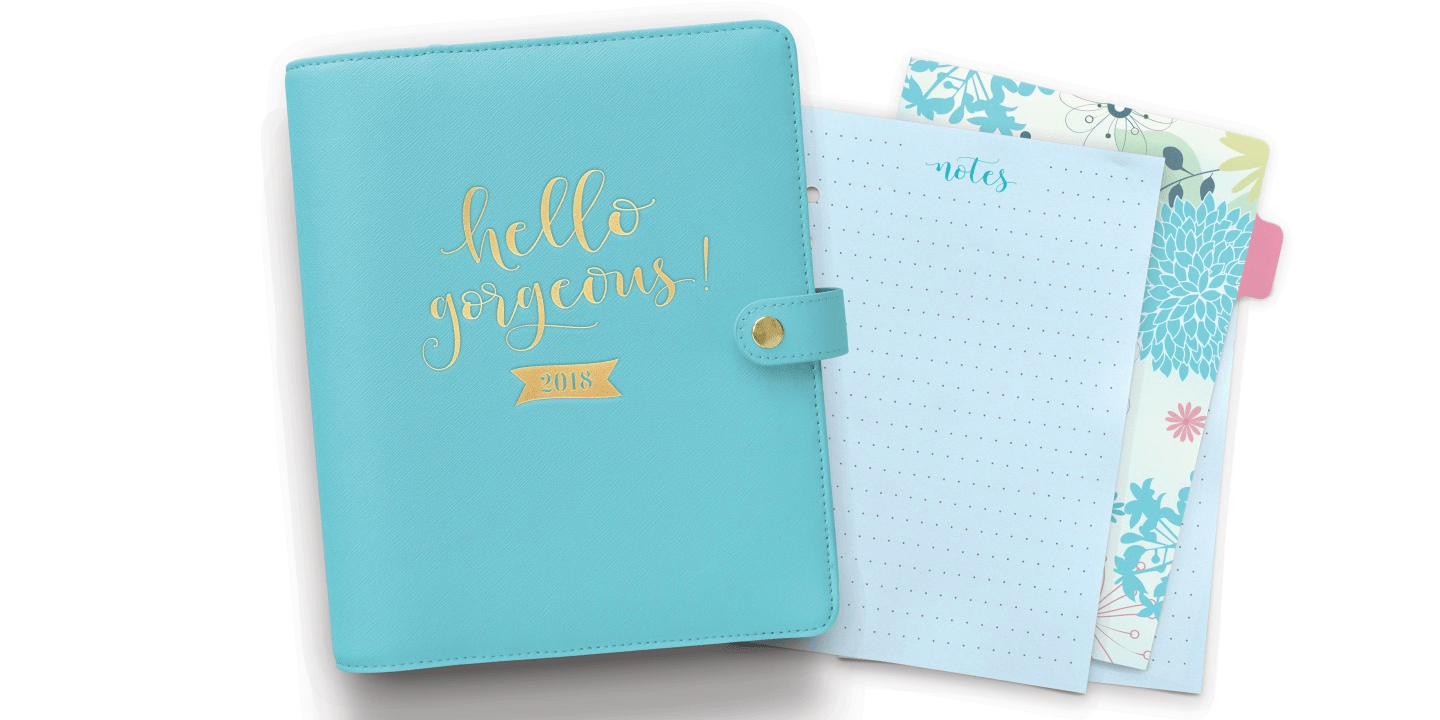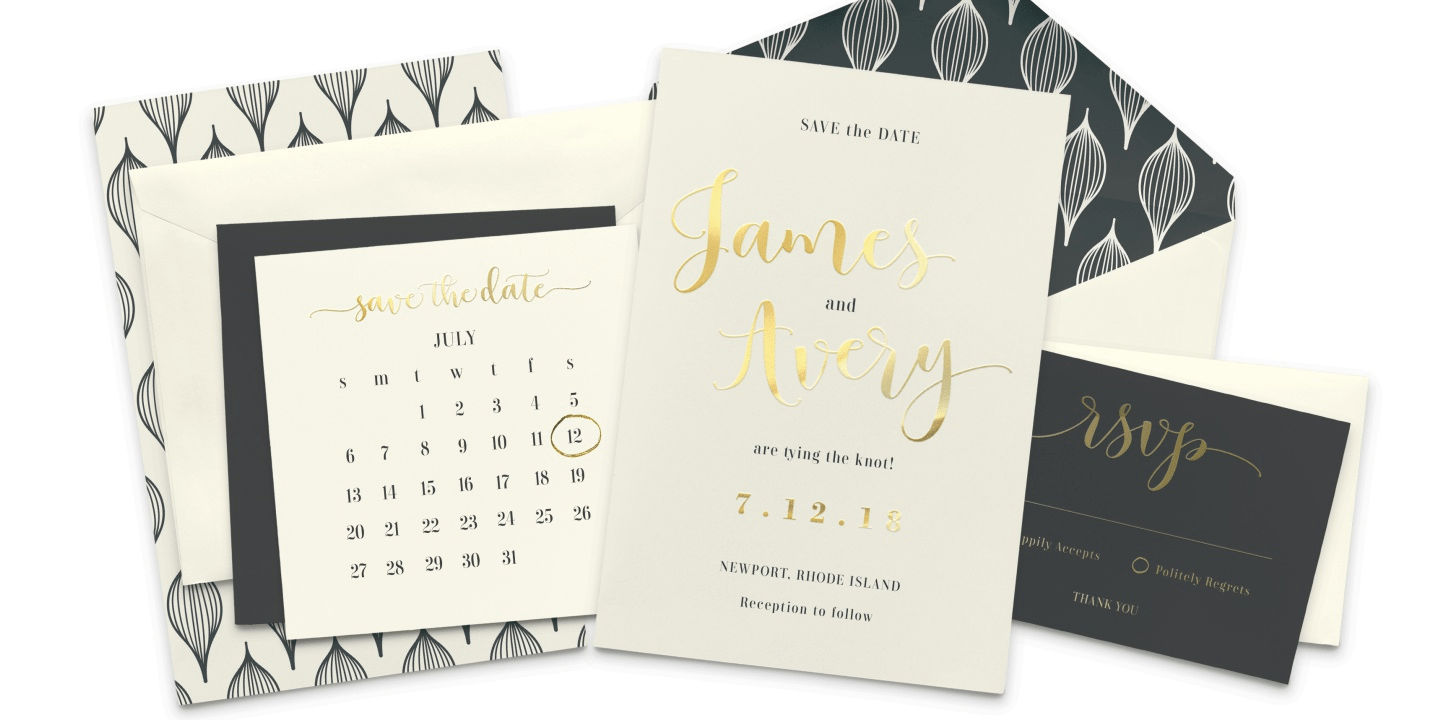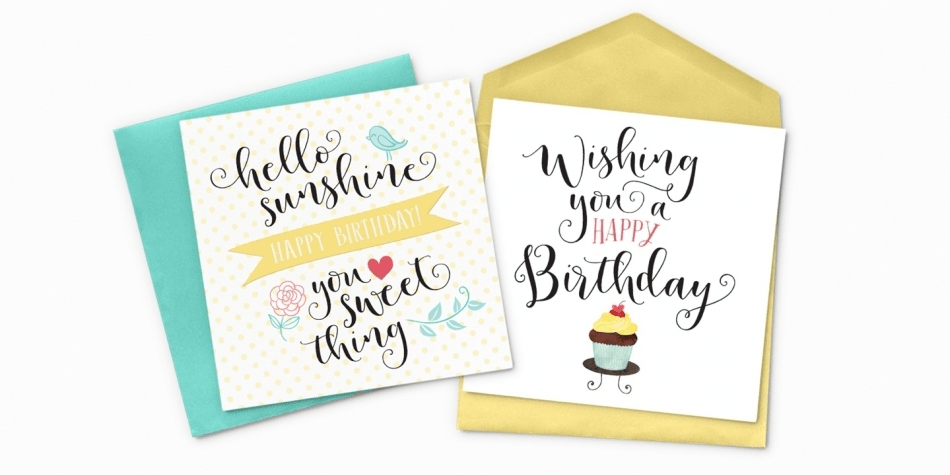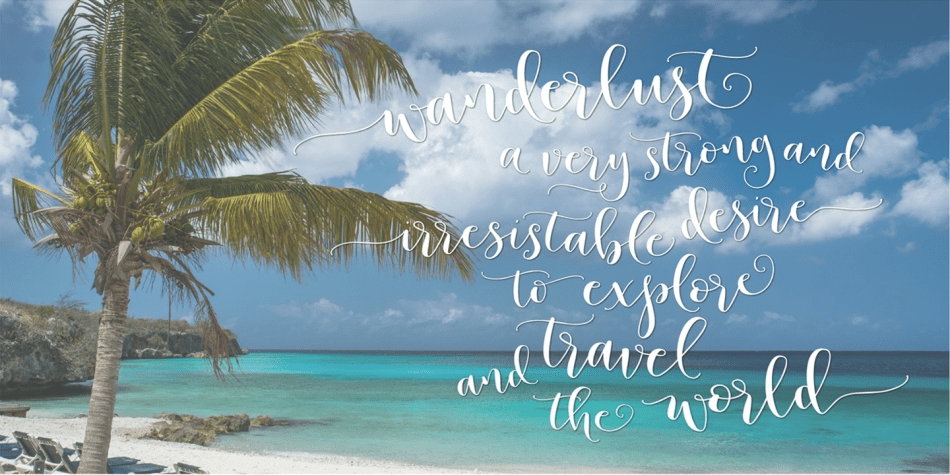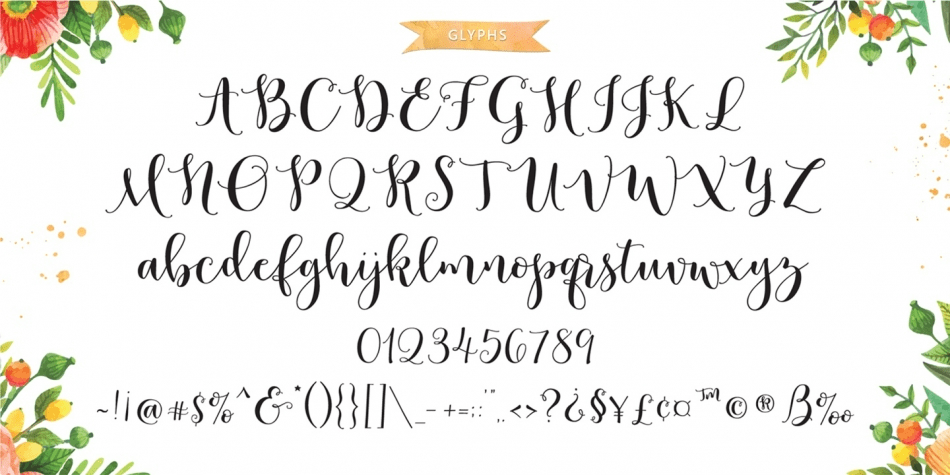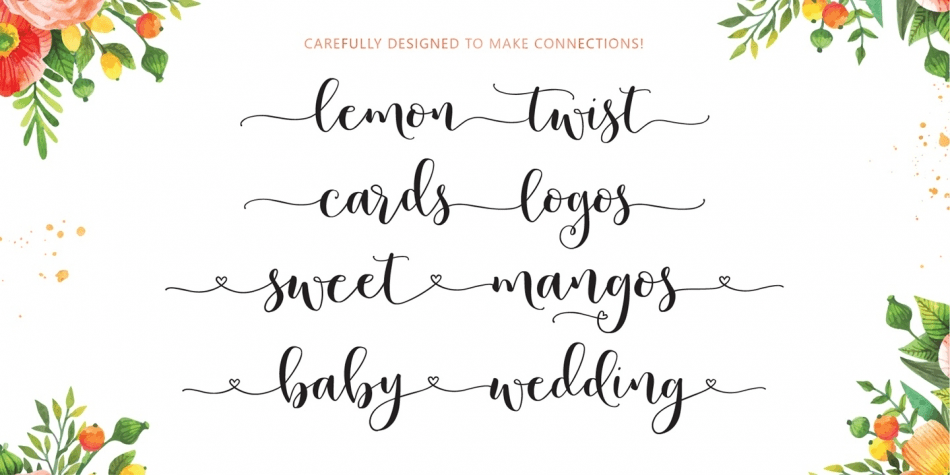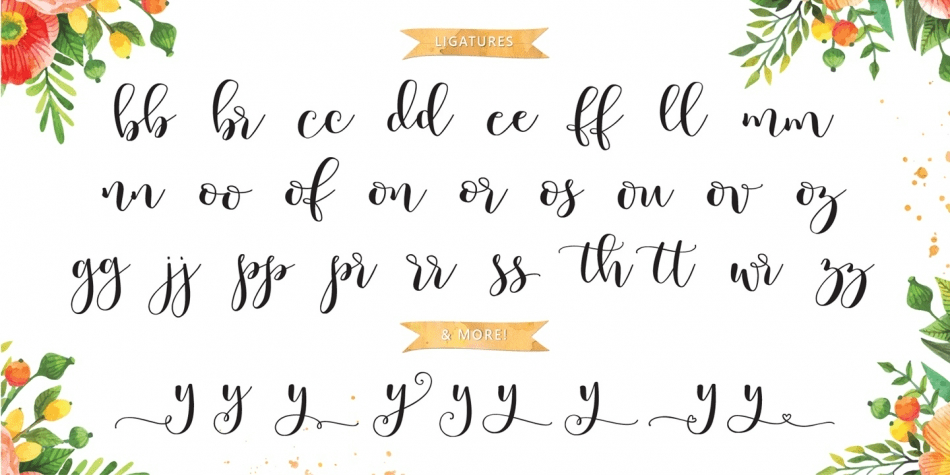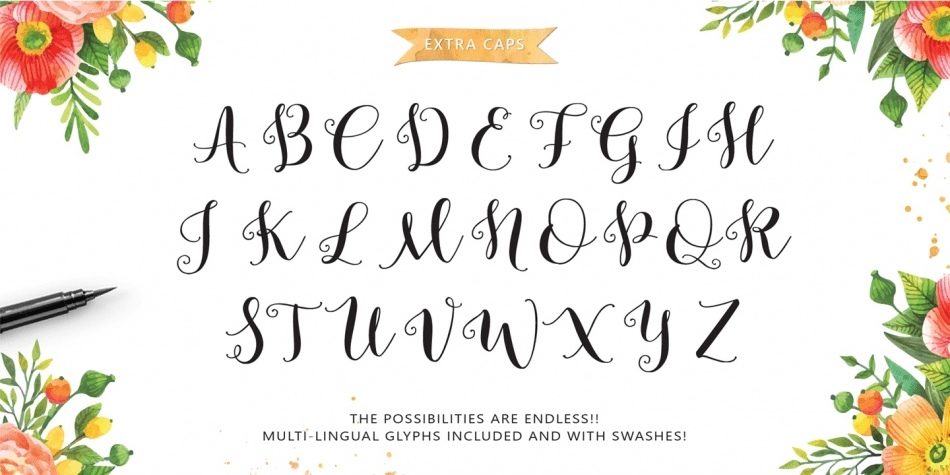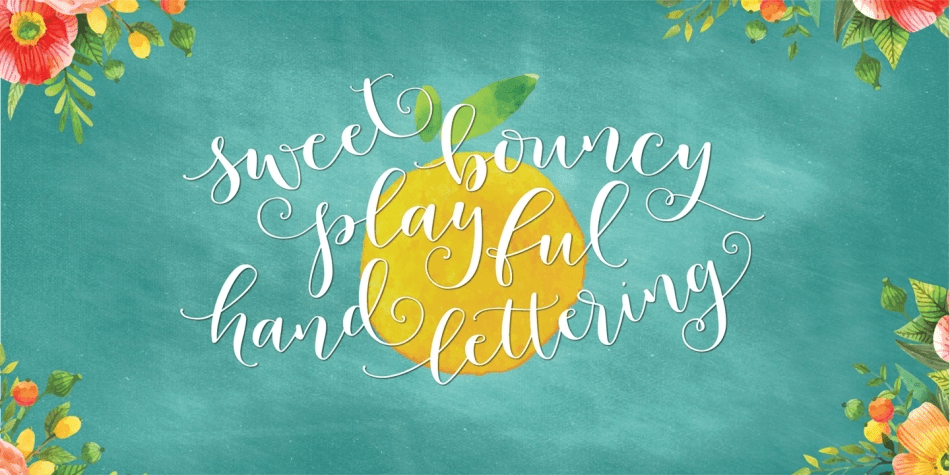
Lemons Mangos Sunshine
Designed by Emily Spadoni, Lemons Mangos Sunshine is a modern calligraphy font family. Carefree and bouncy, she is perfect for when you need just the right font for that baby announcement or greeting card! Includes an entire produce department of ligatures and swashes.
The Lemons Mangos Sunshine font family includes 849 glyphs.